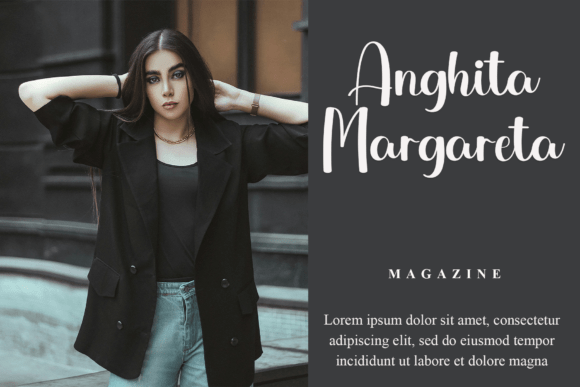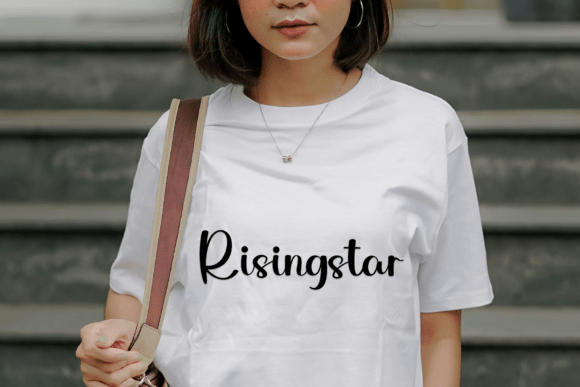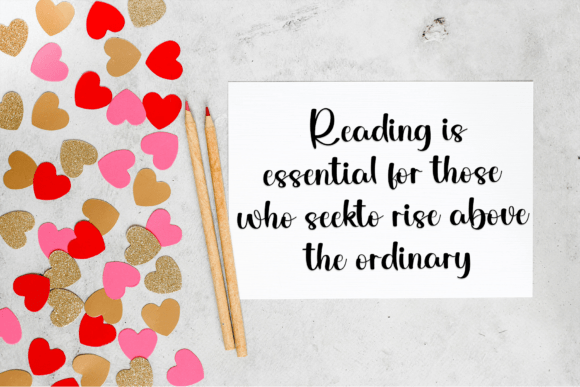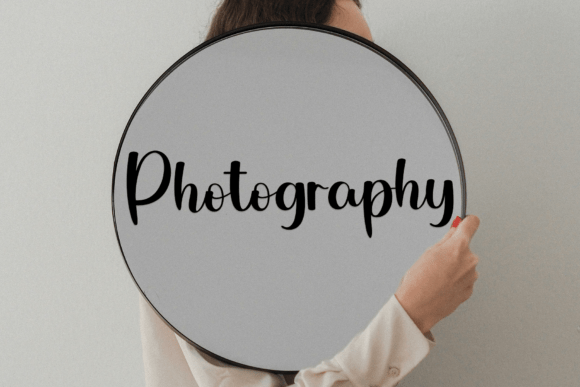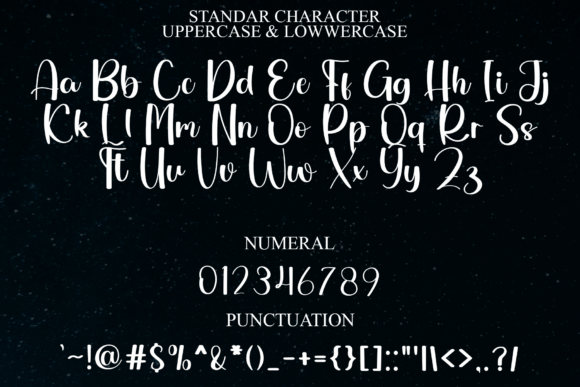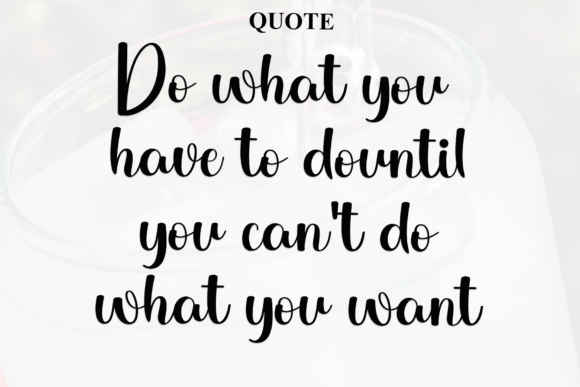
Introducing Grandma Handwriting Font: The Perfect Addition to Your Design Toolkit
Are you a designer, crafter, or DIY enthusiast looking for a font that adds a touch of warmth and nostalgia to your projects? Look no further than the Grandma Handwriting Font. This sweet, rounded script font is designed to mimic natural penmanship, giving your designs a soft and friendly feel that’s perfect for a variety of applications.
The Characteristics of Grandma Handwriting Font
Grandma Handwriting Font is a unique and charming font that’s characterized by its:
- Soft and rounded edges: The font features smooth, rounded edges that give it a gentle and approachable feel.
- Natural penmanship style: The font is designed to look like natural handwriting, with subtle variations in letter size and spacing that mimic the way we write by hand.
- Warm and nostalgic vibe: The font has a distinctly retro feel that’s perfect for creating designs that evoke a sense of nostalgia and warmth.
Uses for Grandma Handwriting Font
Grandma Handwriting Font is an incredibly versatile font that can be used in a wide range of applications, including:
- Greeting cards: Add a personal touch to your greeting cards with this charming font that’s perfect for birthdays, holidays, and other special occasions.
- Personal projects: Use Grandma Handwriting Font to add a touch of personality to your personal projects, such as photo albums, scrapbooking, and journaling.
- Kids’ designs: The font’s playful and whimsical feel makes it perfect for kids’ designs, such as children’s party invitations, coloring books, and educational materials.
- Branding and packaging: Use Grandma Handwriting Font to create custom branding and packaging that stands out from the crowd and evokes a sense of warmth and approachability.
Tips for Using Grandma Handwriting Font
Here are a few tips for getting the most out of Grandma Handwriting Font:
- Pair it with other fonts: Grandma Handwriting Font pairs well with other fonts, such as sans-serif fonts like Arial or Helvetica. Experiment with different font combinations to find the perfect look for your design.
- Use it in combination with images: The font looks great in combination with images, especially those with a vintage or retro feel. Try pairing it with photos or illustrations to create a unique and eye-catching design.
- Experiment with colors: Grandma Handwriting Font looks great in a variety of colors, from bright and bold to soft and pastel. Experiment with different colors to find the perfect look for your design.
Why Designers and Crafters Love Grandma Handwriting Font
Grandma Handwriting Font has become a favorite among designers and crafters, and for good reason. Here are just a few reasons why:
- Unique and distinctive: The font’s unique and distinctive style sets it apart from other fonts, making it perfect for designers and crafters who want to create custom and eye-catching designs.
- Easy to read: Despite its handwritten feel, Grandma Handwriting Font is surprisingly easy to read, making it perfect for designs that require a lot of text.
- Versatile: The font’s versatility makes it perfect for a wide range of applications, from greeting cards to branding and packaging.
Grandma Handwriting Font is a sweet, rounded script font that’s perfect for designers and crafters who want to add a touch of warmth and nostalgia to their projects. With its natural penmanship style, soft and friendly feel, and versatility, it’s an ideal choice for a wide range of applications. Whether you’re creating greeting cards, personal projects, or branding and packaging, Grandma Handwriting Font is sure to become a favorite in your design toolkit.